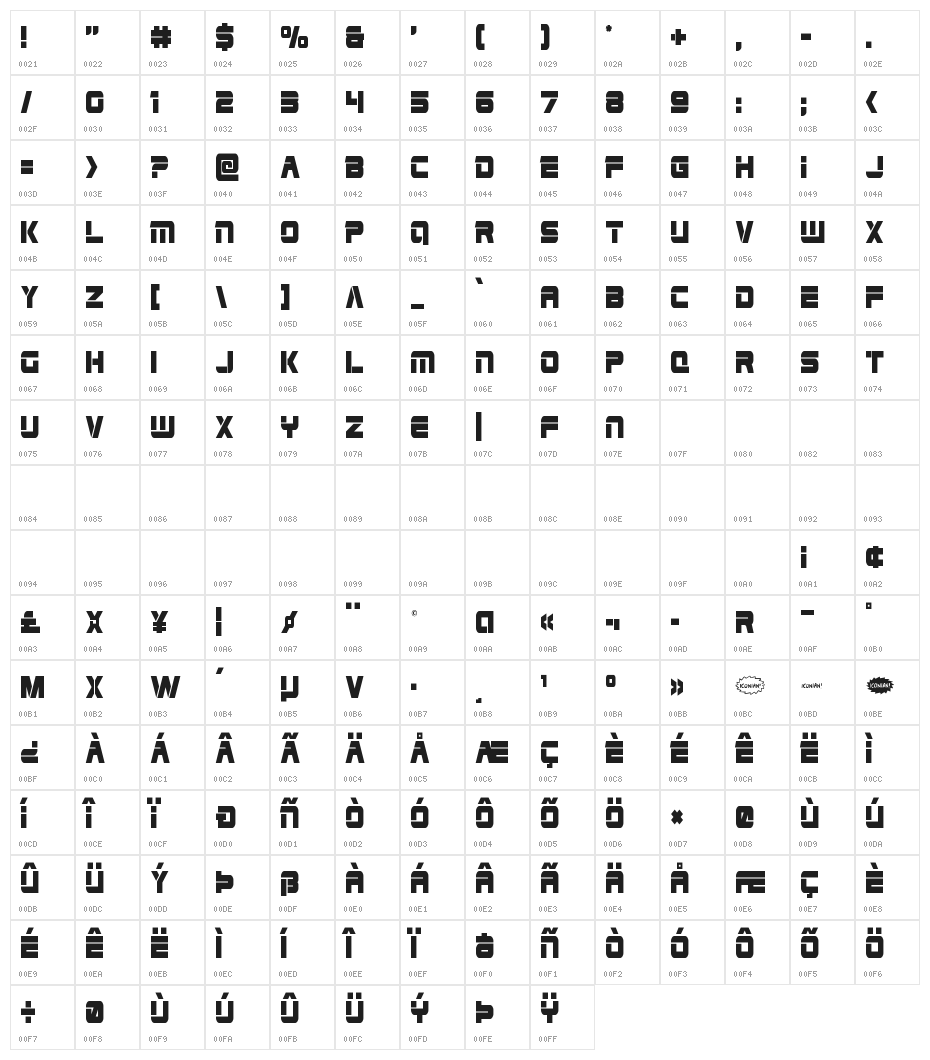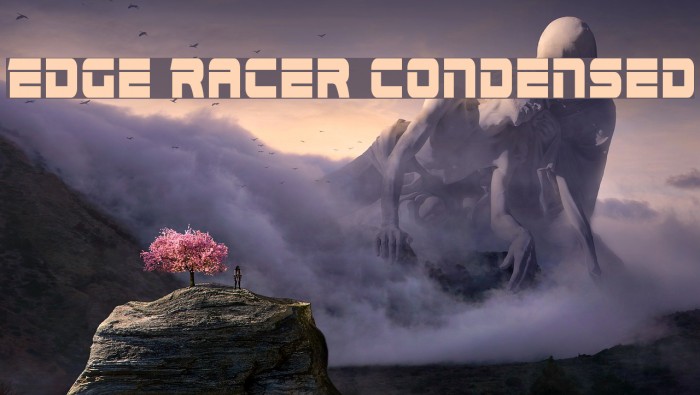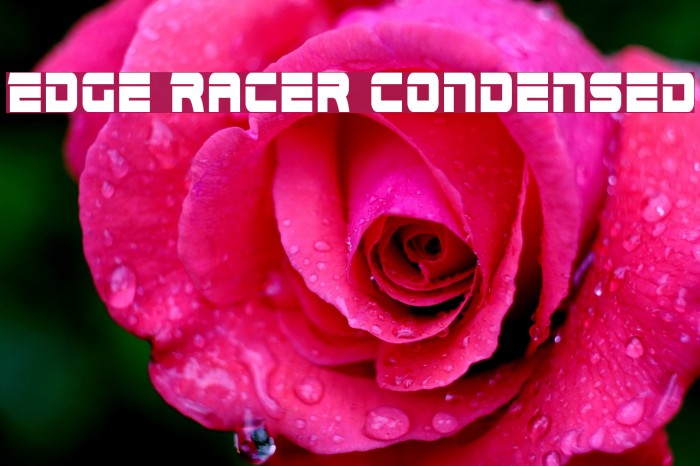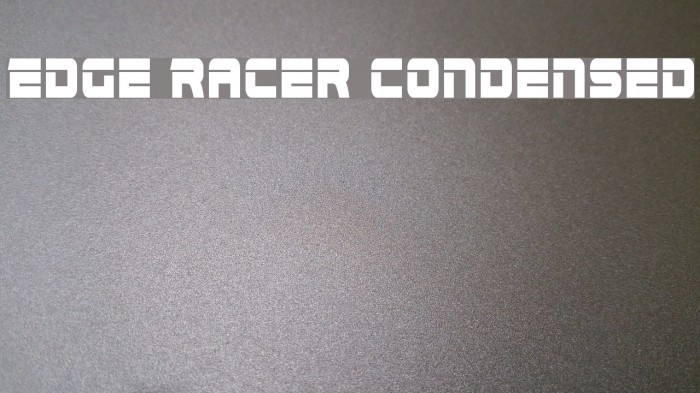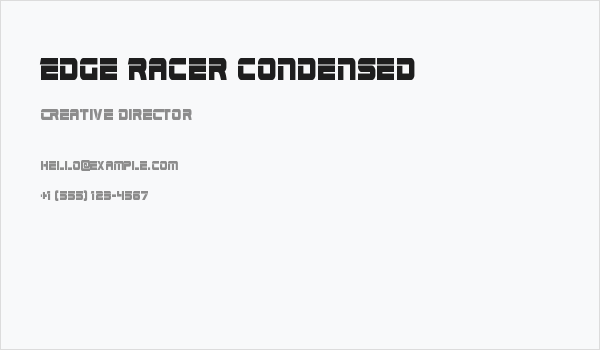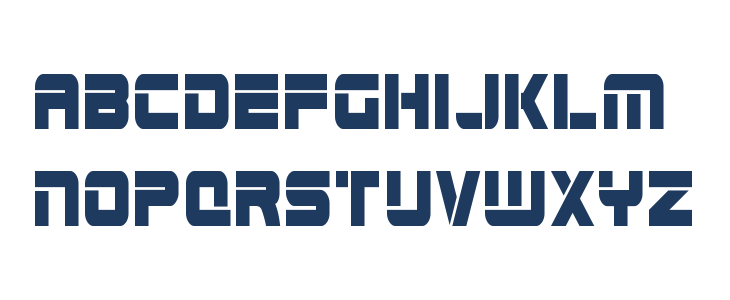
Edge Racer Condensed Font
Edge Racer Condensed Description
This font features a bold, futuristic design with a condensed structure, making it ideal for impactful headlines and modern branding. The characters are uniformly thick, with sharp angles and a geometric style that conveys a sense of speed and technology. The uppercase and lowercase letters maintain a consistent height, enhancing the uniformity and sleekness of the typeface. The numerals and special characters follow the same design principles, ensuring a cohesive look across all text elements. This font is perfect for projects that require a strong, contemporary aesthetic.
Proposed ProjectsIdeal for technology branding, sports team logos, automotive advertising, and sci-fi themed designs.